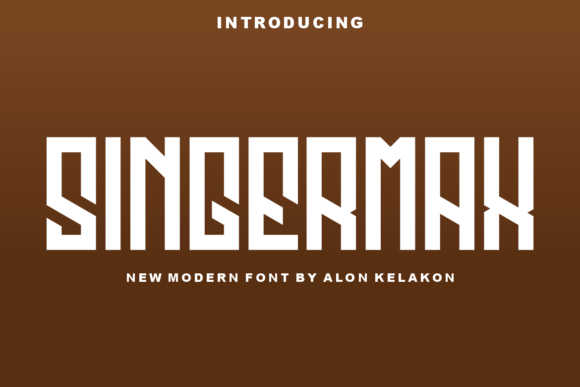
Introducing the Singermax Font, a sans serif font family that's simply stunning. Its clean lines and sharp angles evoke a sense of modernity and sophistication, making it the perfect choice for tech companies, startups, and anyone looking to create a bold and impactful visual statement.
Designed by the talented alonkelakon, the Singermax Font is a versatile all-rounder that can be used for a wide range of design projects, from sleek logos and branding materials to eye-catching posters and website designs. Its crisp and legible letterforms ensure maximum readability, even in small sizes, making it ideal for both print and digital applications.
**Here are just a few reasons why you'll love using the Singermax Font:**
* **A touch of elegance:** The Singermax Font exudes an air of sophistication and refinement, adding a touch of elegance to any design project. Its timeless appeal makes it a great choice for projects that demand a classic and polished look.
* **Unleash your creativity:** With its clean and versatile design, the Singermax Font provides a blank canvas for your creativity to flourish. Whether you're creating logos, branding materials, posters, or website designs, the possibilities are endless.
* **Make a bold statement:** The Singermax Font is not for the faint of heart. Its bold and confident strokes command attention and make a statement, ensuring your designs stand out from the crowd.
* **Tech-savvy and trendy:** The Singermax Font is the perfect choice for tech companies and startups looking to create a modern and cutting-edge brand identity. Its sleek and minimalist design aligns perfectly with the latest trends in tech and innovation.
* **Add a touch of personality:** The Singermax Font has a unique personality that shines through in every design. Its playful and energetic vibe adds a touch of fun and excitement to any project.